Letterform Archive’s collection of ephemera aims to outlast its impermanent nature and provide endless design inspiration.
What do chopstick sleeves, movie programs, luggage labels, and counterculture newspapers have in common? Aside from the fact that they are all found at Letterform Archive, these pieces of design are connected by their relationship to transience. Though they may have vastly different visual styles and origin stories, they are all considered ephemera: objects meant to exist or be used only for a short time.
Ephemera can be used for everything from advertising—think pocket calendars and pen blotters emblazoned with company logos—to organizing—think concert flyers and protest posters. Others still are made for personal use, like Victorian calling cards. Perhaps because they are so short-lived, ephemera can allow for more experimentation in concept and production. They can be modes of communication within niche communities, like the graffiti zines of the 1990s. Or they can simply weave a bit of colorful whimsy into the day-to-day, as Milwaukee did with their trolley passes. Some ephemera are scrappy, made quickly by anonymous creators using cheap materials and easily accessible printing, while some are carefully designed by industry greats like W. A. Dwiggins and Piet Zwart. Whatever the case may be, ephemera play an essential role in shaping the visual culture of their particular place and time.
Letterform Archive was founded to give designers access to objects that are often overlooked or lost to the dumpster. While some ephemera are meant to be collectible, most are not made to last: they are simply the paper collateral of daily life. We are especially indebted to independent ephemera enthusiasts who have entrusted us with donations of their personal collections. Because ephemera are so ubiquitous, their degree of influence and worthiness of study may not always receive proper recognition. At the Archive, these everyday objects rightfully live alongside rare books and are treated with equal reverence.
The definitions of ephemera are flexible enough to encompass a very broad range of items. Here’s an incomplete list of what could be included:
At Letterform Archive, everyday objects are shelved alongside one-of-a-kind books, and both are given equal importance as sources of design inspiration.
Richard Sheaff’s massive trove of turn-of-the-century ephemera offers colorful examples from an exciting period innovation in letterform and printing. We’re still processing this major collection, but you can get a preview in the blog.
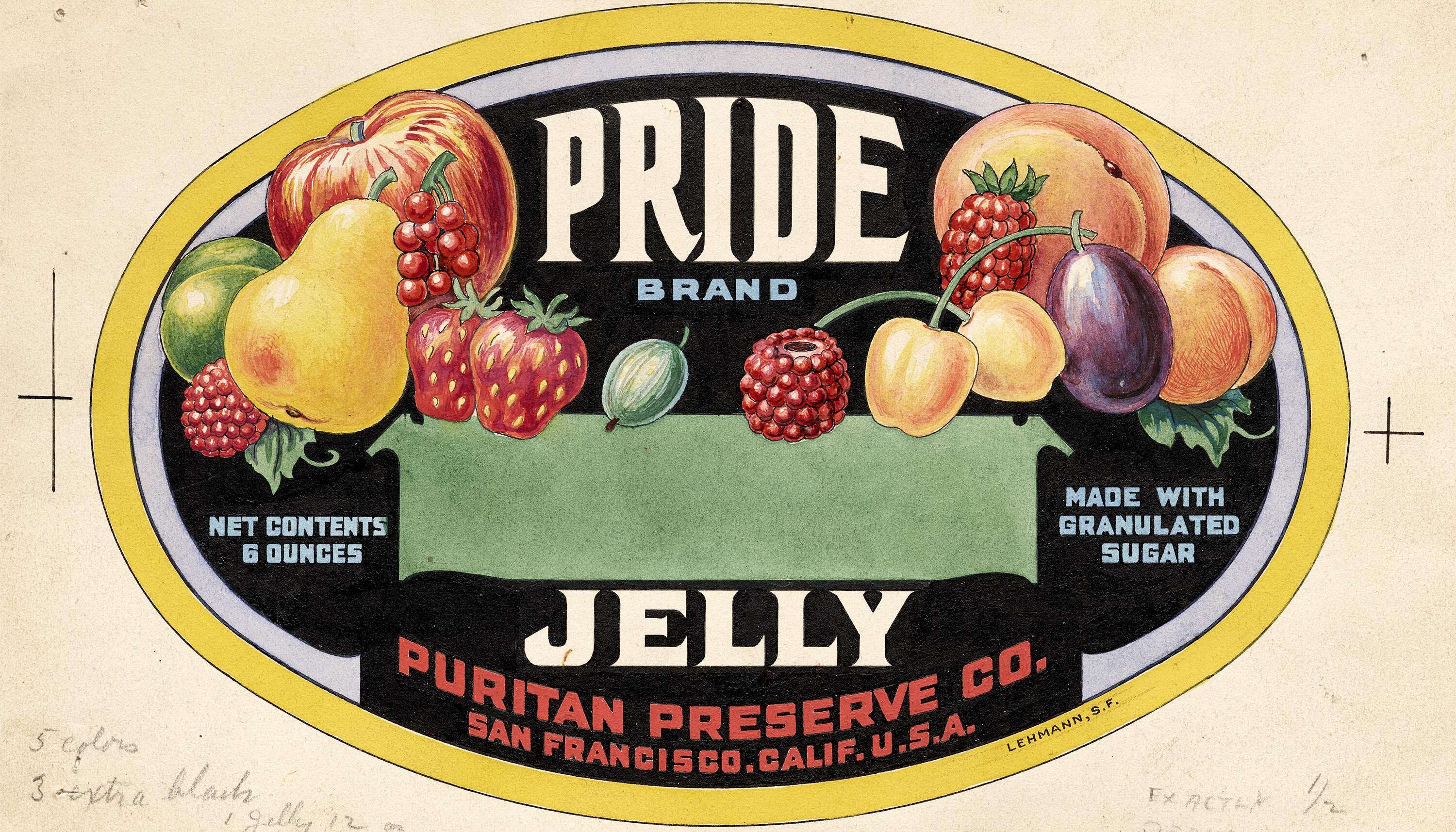
These demonstration labels from the 1920s–’30s are delicately hand painted at actual size. With our high-fidelity images, you can see every brushstroke!
Chopstick sleeves are the perfect example of omnipresent design, and an oft-overlooked visual aspect of the dining experience. Angie Wang connects a recent donation of sleeves to their significance in Japanese culture.
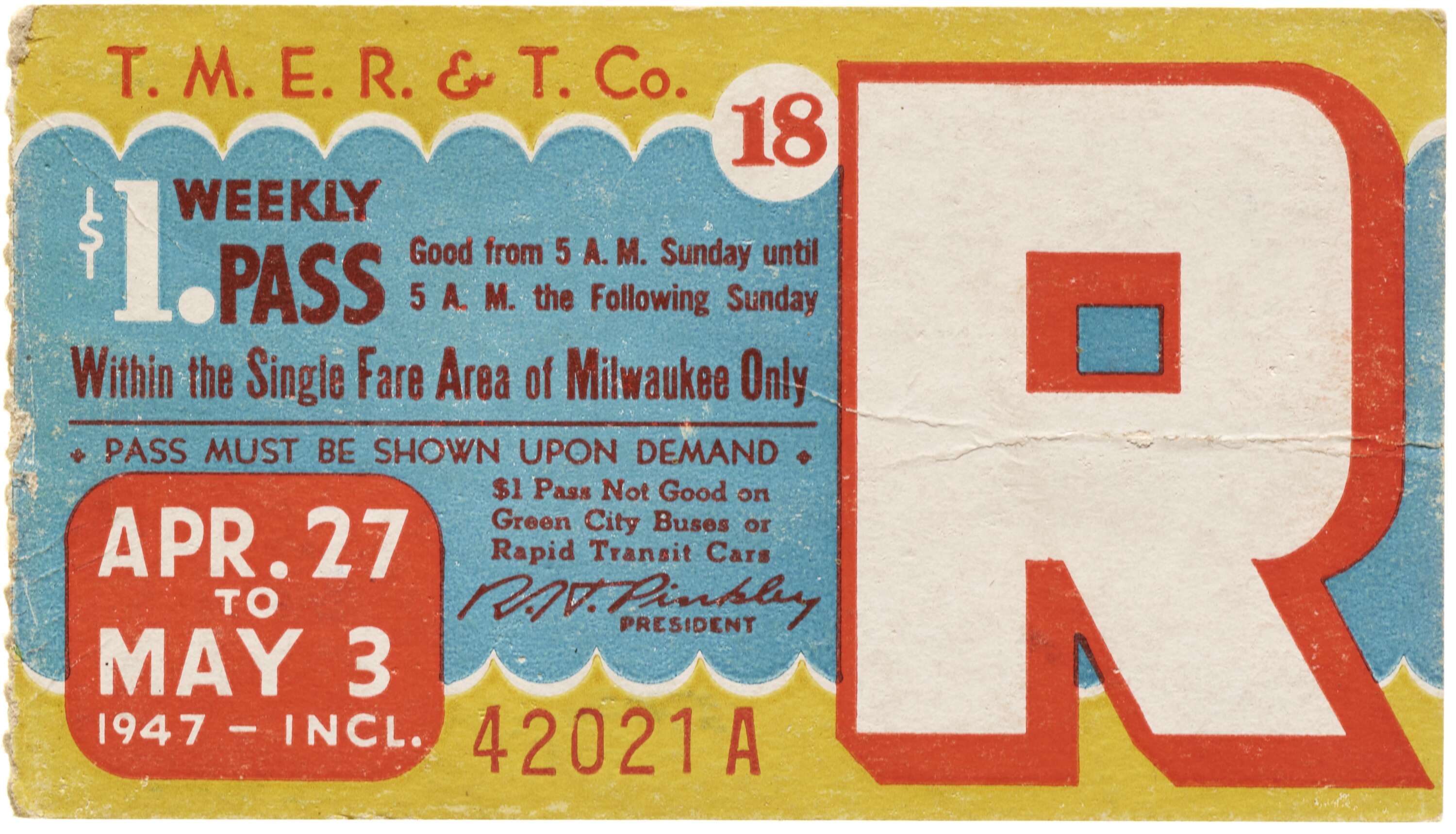
Each weekly pass in our vibrant collection of Milwaukee trolley tickets has a unique hand-lettered design and color scheme. These are an Archive favorite, and proof that even ordinary items should be beautiful!
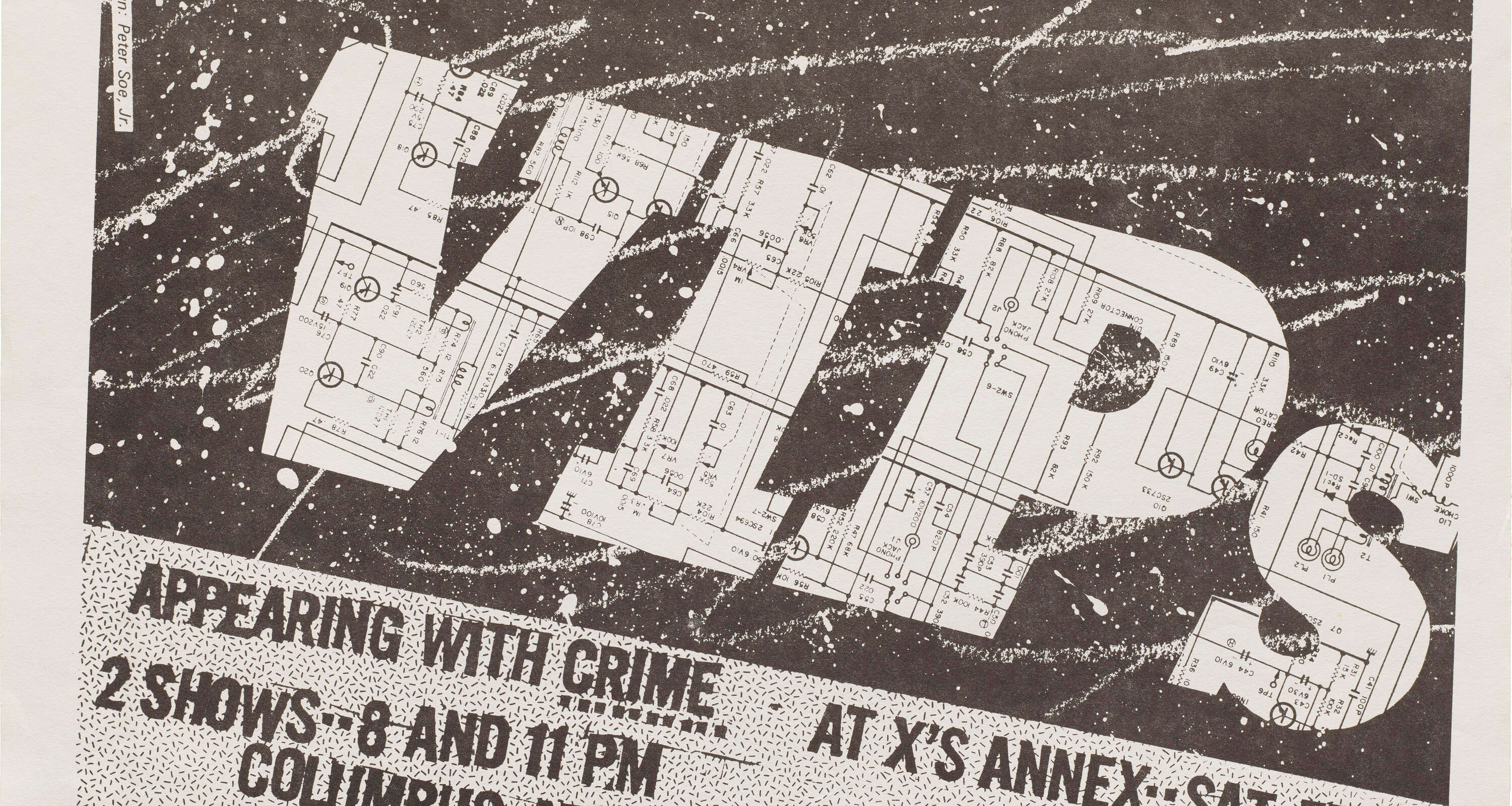
A collection of flyers promoting Bay Area punk shows of the 1970s and ’80s exemplifies the edgy and raw visual language of a scene that was viscerally anti-establishment.
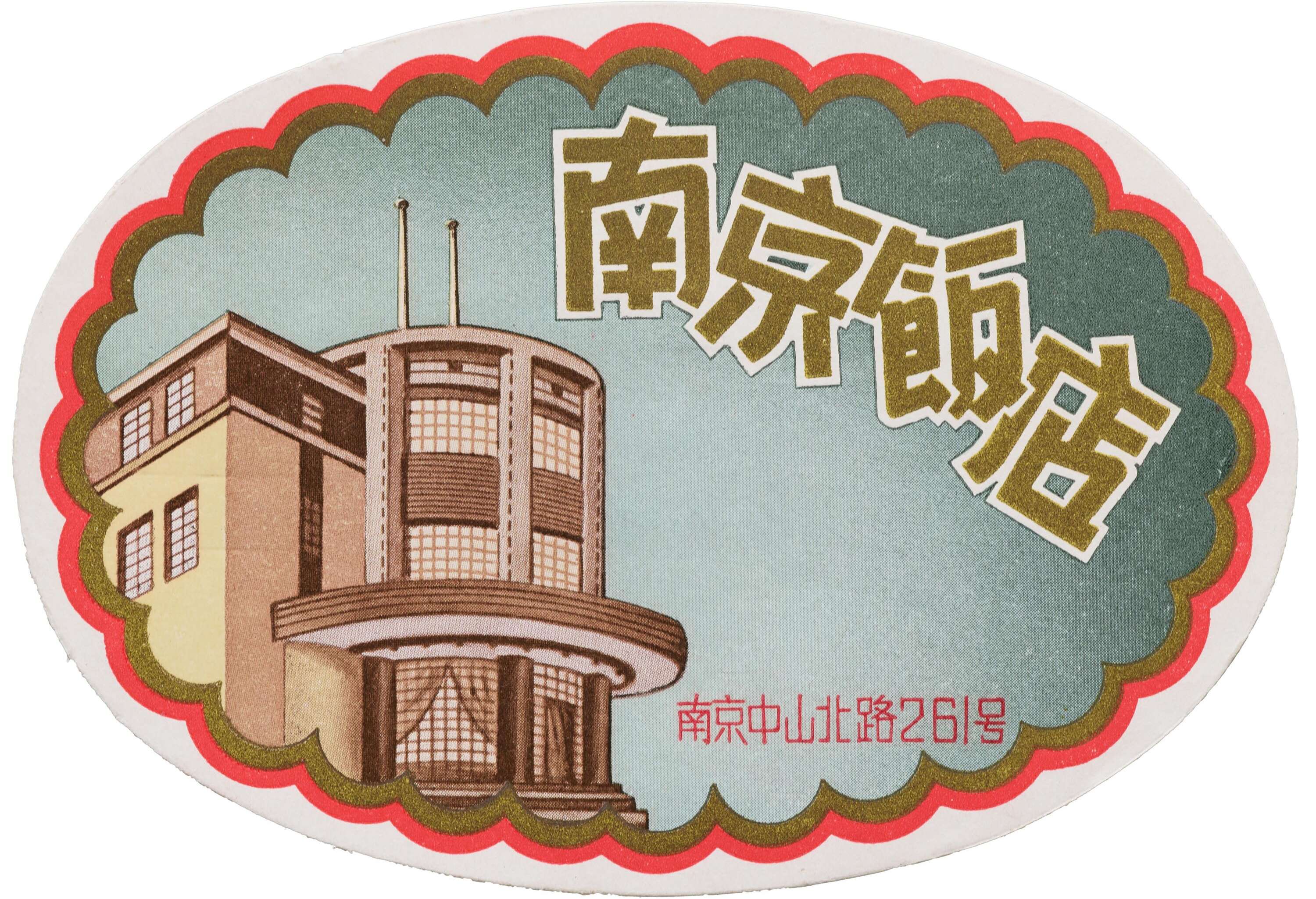
Colorful luggage labels of varied shapes, scripts, and styles came from all around the world to find their home at the Archive. See a few highlights in the Online Archive.
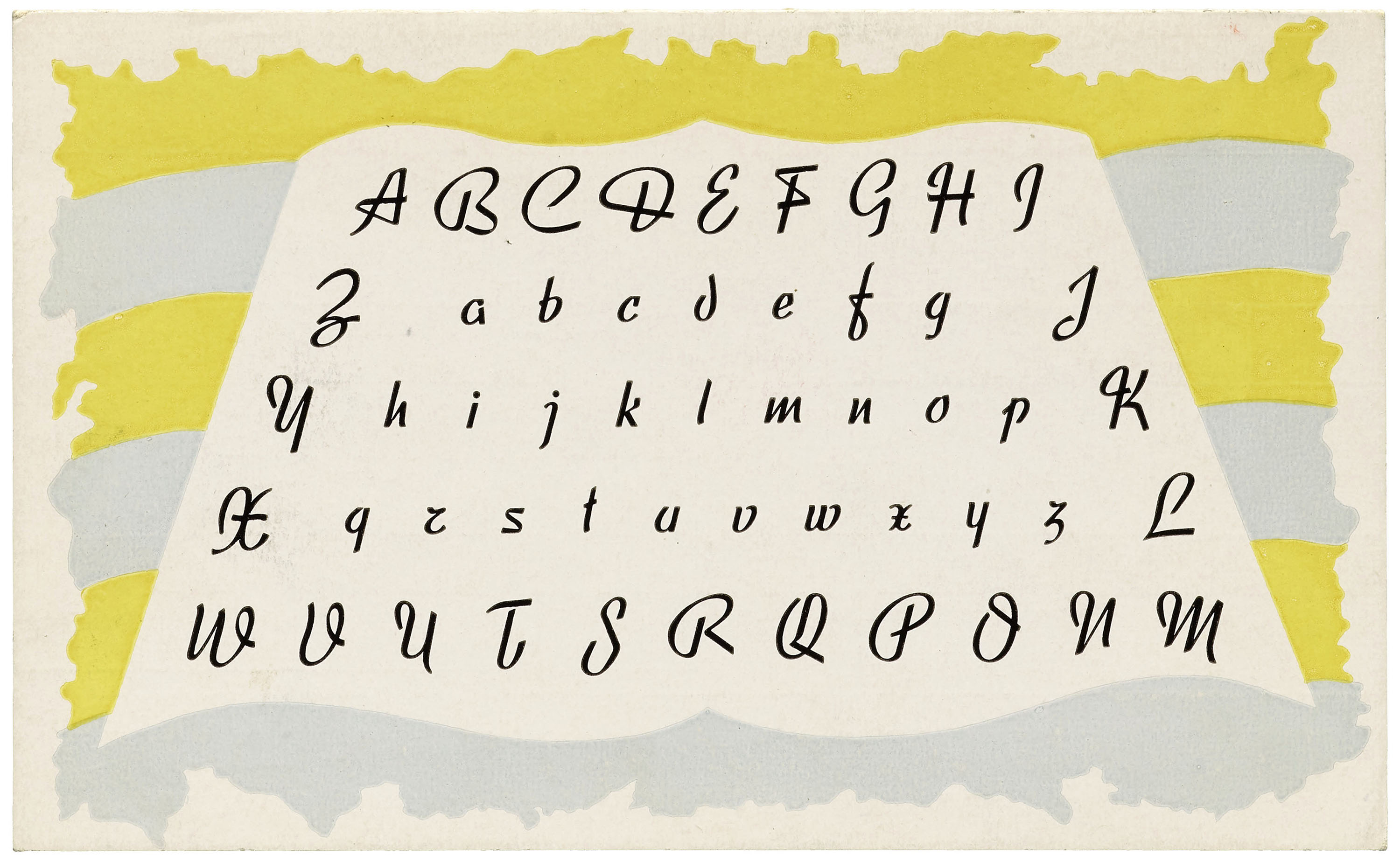
The Archive’s collection of metal type foundry specimens is one of the largest in the world. Trawl through twentieth-century design history via the beautifully produced booklets that advertised each new font as it entered the market.
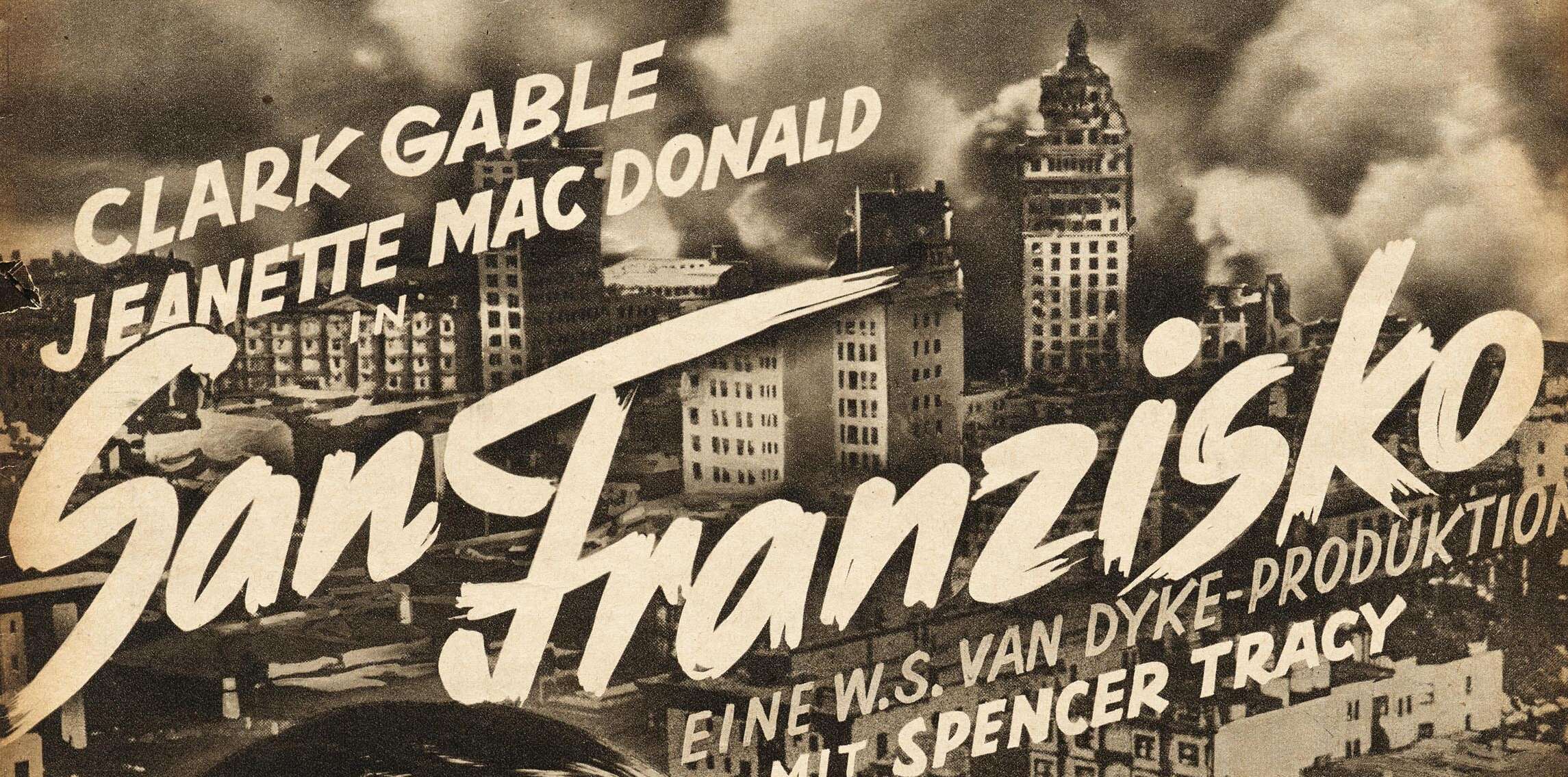
Promotional ephemera from a pre-Internet era shows the remarkable design techniques used to draw viewers to the movie theater. Each hand-drawn film title provides inspiration for today’s lettering artists.
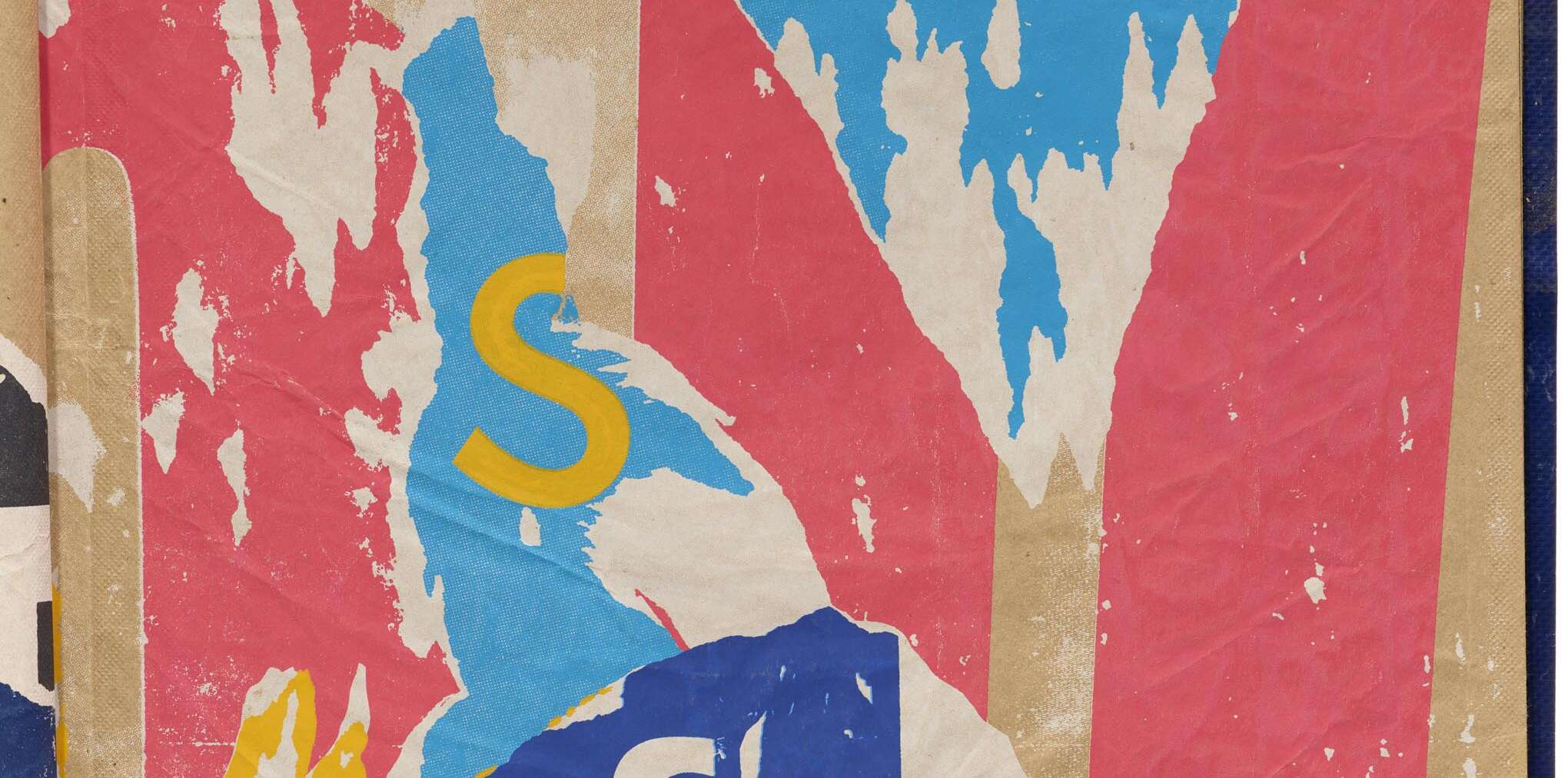
Artist duo Franticham travels the world and creates experimental books inspired by—and sometimes printed on—ephemera gathered in each locale.
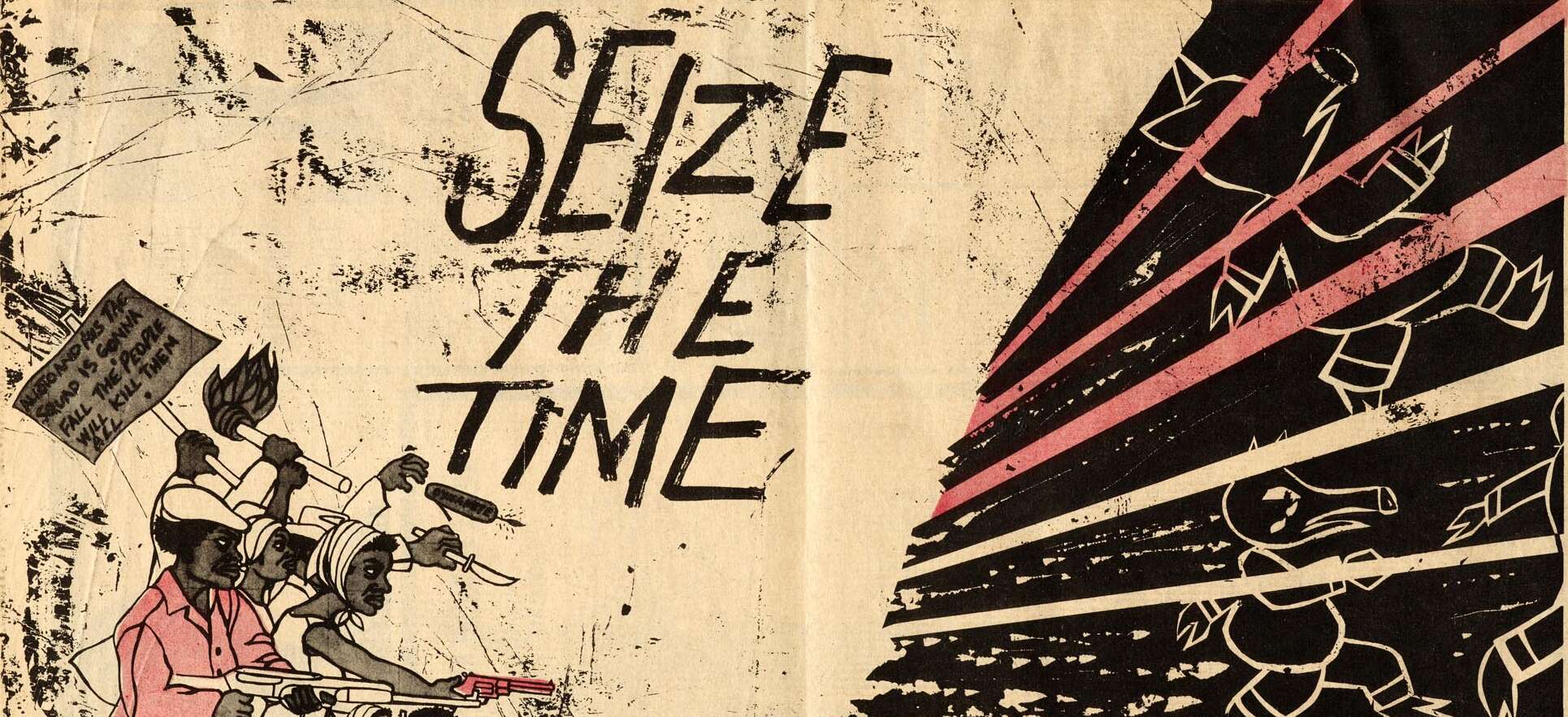
The Black Panther Party’s weekly newspaper remains a timeless example of the political power of design. We interview Emory Douglas, designer of the publication’s striking visual identity and back-page posters.
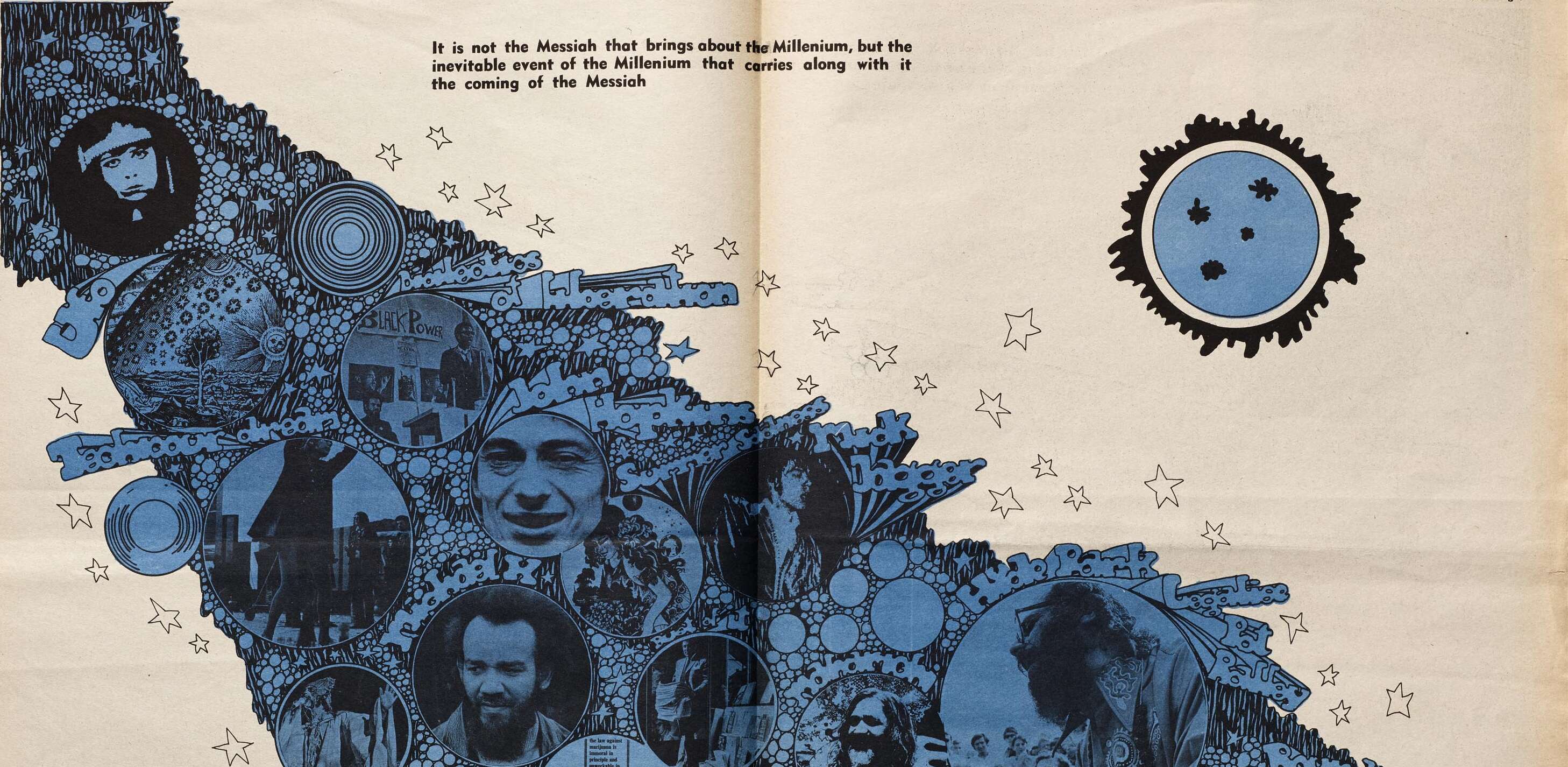
The reporting in these periodicals may be long out of date, but our collection of counterculture newspapers provides an endless source of DIY design inspiration.